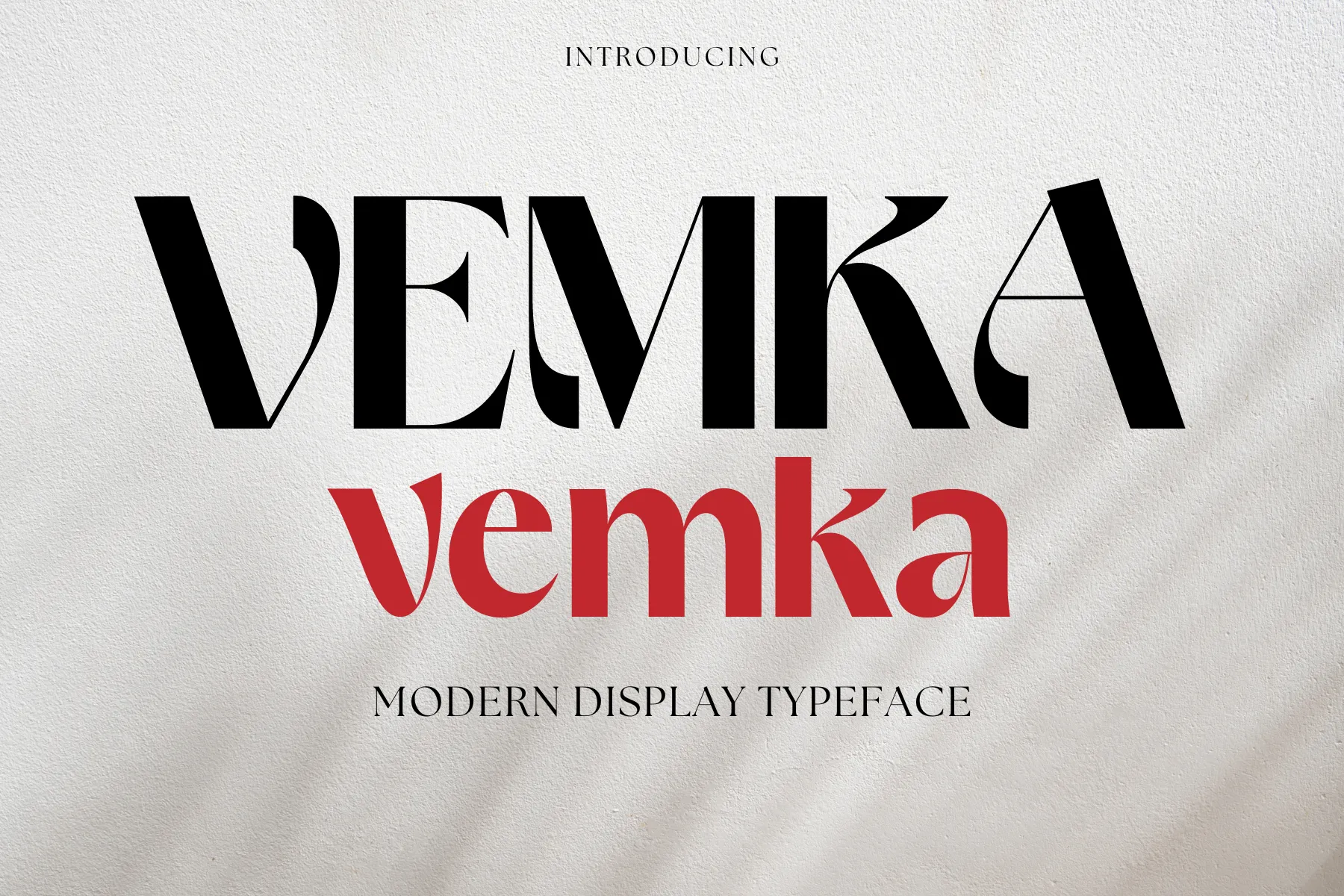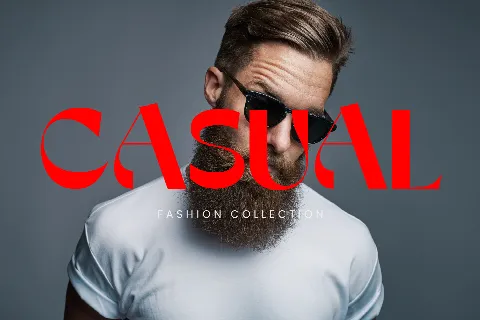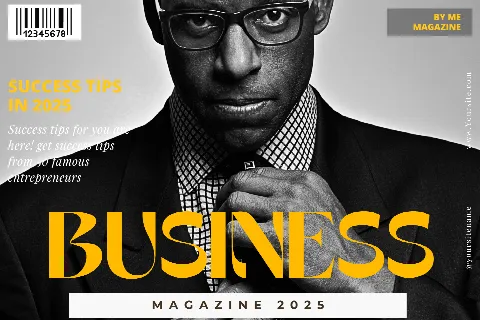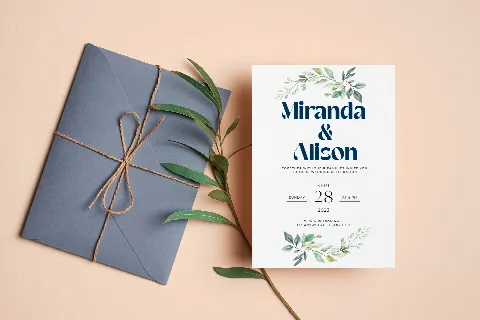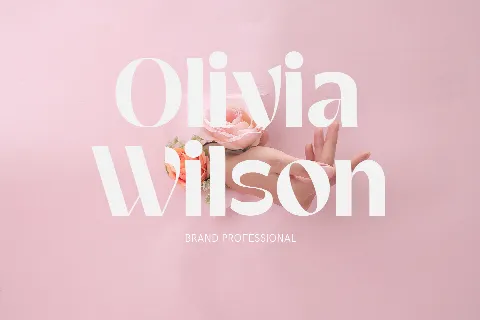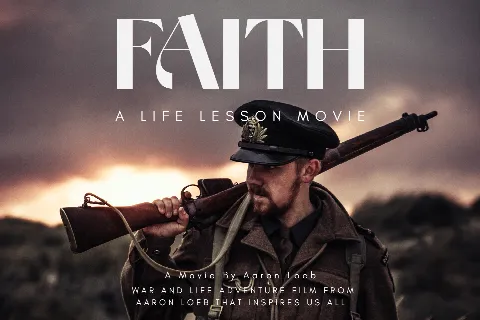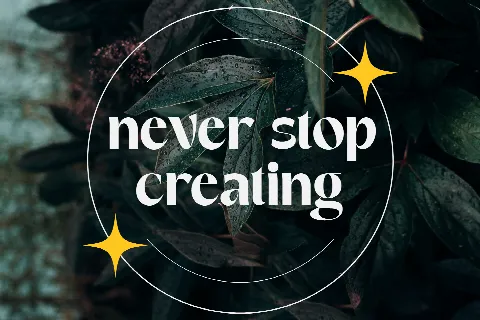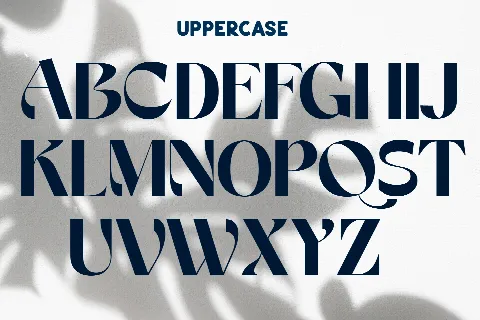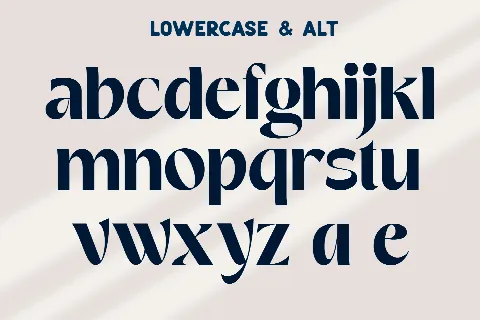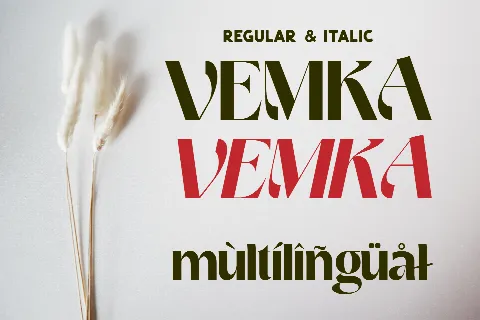
VEMKA
VEMKA MODERN DISPLAY FONT
Made for eye-catching display use. Vemka has a lot of spunk and a bit of eccentricity, along with sophisticated details that hold up to a very modern size. With a wide range of expression and personality, it can be used for everything from fashion labels to logotypes, to modern billboards and editorials.
Comes with Regular and Italic.